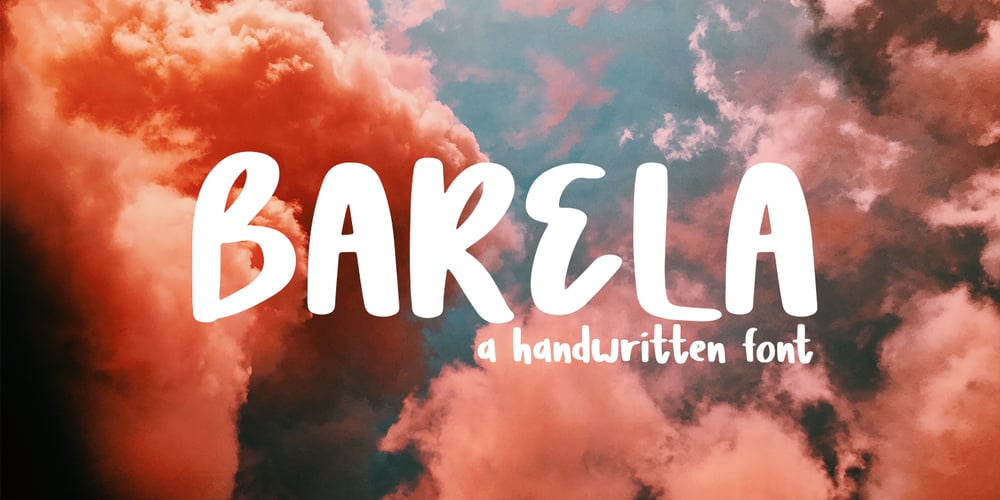
Barela Font Family was designed by Gitayogi Irhandi and published by Scratch Design. Barela contains 1 styles and family package options. Please welcome Barela. Barela is a handwritten font and has character such as friendly, casual type family and smooth. It is intended to be used everywhere where a pleasant feeling should be conveyed like advertising, food, fashion or something that include happiness. It will look great on all of your products and make them more fancy and relax.With the uniqueness of the shapes, Barela can attract attention of anyone and be an eye catching font in your design. The bold letters of this font makes it stand out from the crowd. This font also provide with feature such as Uppercase & Lowercase, Number, Punctuation, Multilingual Support (Western and Europe), Support in Mac and Windows OS and easy to install.We hope you like our Barela and thank you for purchasing.Scratch Design